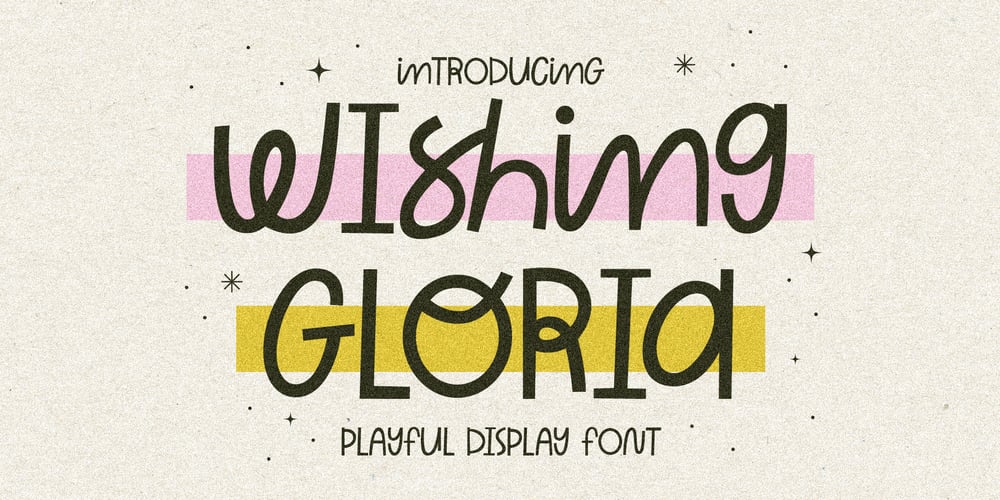
Wishful Gloria Font Family was designed by Gha Arizal and published by Invasi Studio. Wishful Gloria contains 1 styles and family package options. With its loop, curly, & playful strokes, Wishful Gloria creates a display font. The font comes in uppercase all caps with OpenType features. Alternate characters and ligatures can be used to give the composition a unique feel.Suitable for display needs such as quotes, branding, logo, poster, cover design, etc